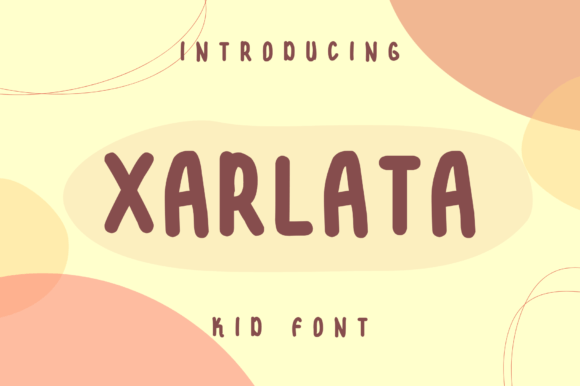
Introducing Xarlata Font, the font that will knock your designs out of the park! This ultra-cool and trendy display font is perfect for making a statement. Whether you're designing logos, badges, clothing, or posters, Xarlata will help your projects stand out from the crowd.
Xarlata's bold and eye-catching letters are sure to grab attention. It's the perfect font for headlines, titles, and any text that you want to make a big impact. And with its clean and modern lines, Xarlata is also surprisingly versatile. It can be used for both formal and informal projects, and it always looks sharp and professional.
So if you're looking for a font that will add some personality to your designs, look no further than Xarlata. It's the perfect way to make your projects stand out from the crowd.